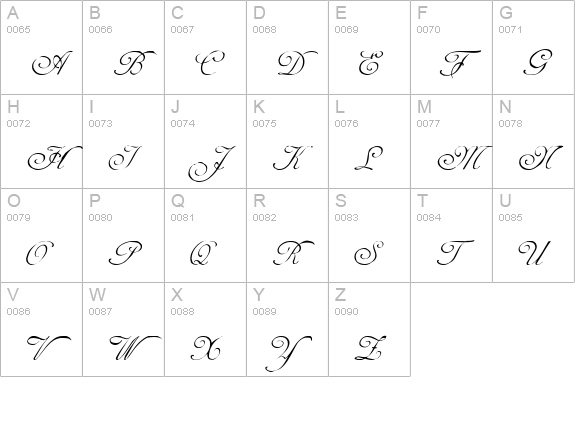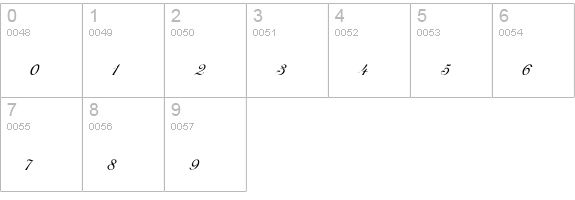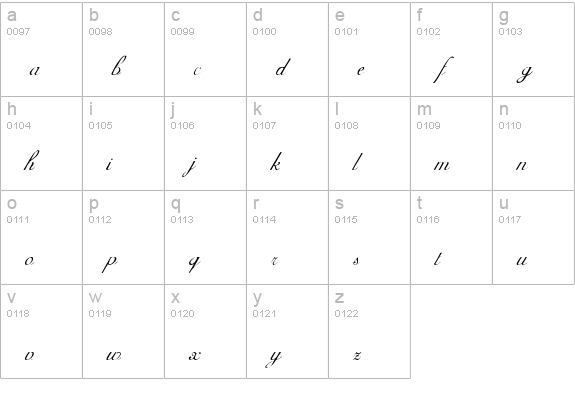
Carmel Script SSi Font Details
Carmel Script SSi is a stunning and elegant handwritten font that exudes sophistication and charm. With its flowing lines and delicate curves, this font is perfect for adding a touch of class to any project. Whether you're designing invitations, creating branding materials, or crafting a beautiful logo, Carmel Script SSi is sure to impress. What's even better is that Carmel Script SSi is available for free download at FontsMarket.com. Yes, you heard it right - this exquisite font can be yours at no cost at all! Don't miss this opportunity to elevate your designs with Carmel Script SSi's timeless appeal and effortless beauty. Download it today and let your creativity soar with this fabulous font.